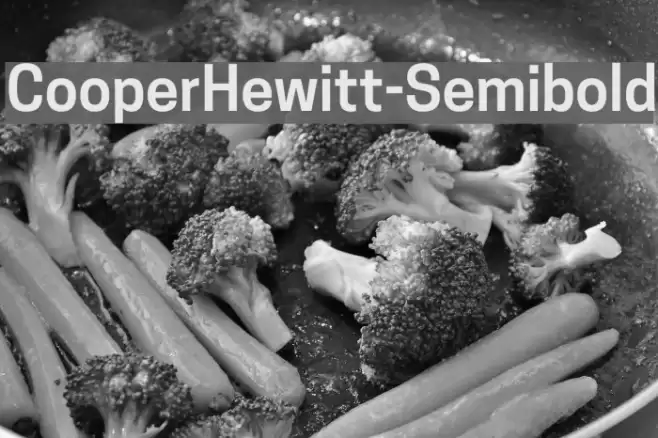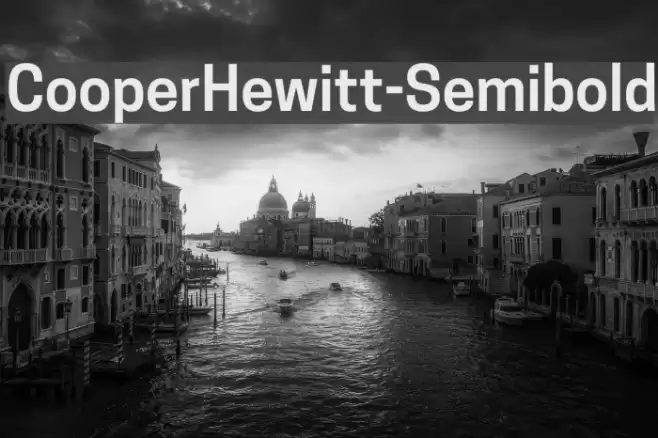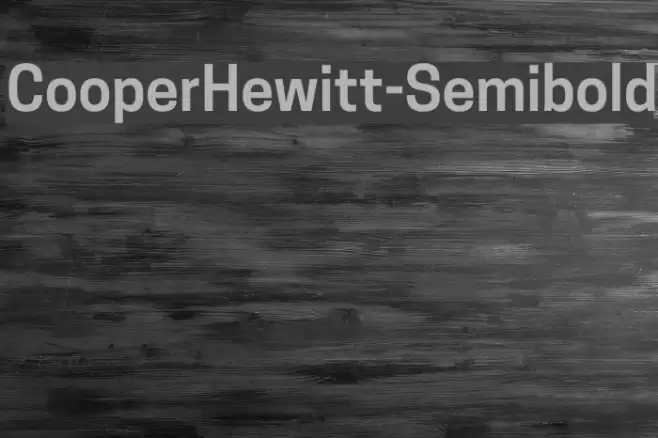
CooperHewitt-Semibold Font
CooperHewitt-Semibold Description
This font features a clean, geometric sans-serif style with a modern aesthetic. The characters are well-balanced, offering a uniform appearance that is both professional and approachable. The uppercase letters are bold and assertive, while the lowercase letters maintain a consistent weight, providing excellent readability. The numerals are clear and distinct, making them suitable for various applications. The special characters are well-integrated, ensuring versatility in design projects. Overall, the font's simplicity and clarity make it ideal for contemporary design needs.
A modern, geometric sans-serif font with excellent readability and versatility from Sans Serif fonts.
- Proposed Projects: Ideal for branding, web design, advertising, and editorial projects where clarity and modernity are key.
- Use Case: Headlines, Body text, Logos